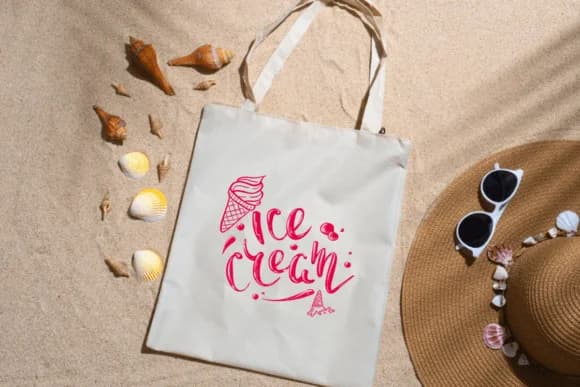
1 / 5About Ice Cream Summer Font
Ice Cream Summer by Bee piyanuch is a dingbats font designed to bring coastal energy and playful charm to beach-themed projects and designs. The collection of ocean and summer symbols works beautifully for creating beach party invitation suites, custom Etsy labels for seaside products, and whimsical decorative elements scattered across vacation-inspired social media graphics. Each character opens up possibilities for layering multiple icons to create illustrated scenes and patterns without needing separate image files, giving you all the seaside building blocks in this one font.
You can put these dingbats to work for mermaid-tail graphics in greeting cards, ornate shell pattern backgrounds on premium stationery, or ocean-themed clipart in DIY craft projects and hand-painted signs. The versatility means combining individual icons into larger compositions for summer vacation scrapbooking layouts, boutique coastal packaging designs, and tropical-inspired branding work for small beach businesses. The range of nautical imagery, seaside motifs, and tropical details makes it straightforward to build visual stories around an island or beach theme without hunting for additional graphics elsewhere.
Ice Cream Summer Font is a versatile dingbats font that works for both headings and body text. Pair it with a contrasting sans-serif or serif font to add visual interest and a clear distinction between titles and body copy.